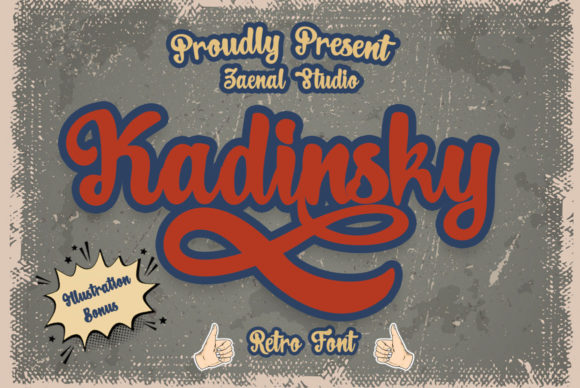
Unleash the Retro Charm in Your Designs with Kadinsky Font!
Kadinsky - a remarkable Retro script font that captivates the essence of nostalgia and playfulness. This unique font is the brainchild of Zaenal Studio, renowned for their mastery in crafting fonts that tell a story. Kadinsky is not just a font; it's a portal to a world of games, cartoons, and vintage logos.
With its quirky charm and elegant curves, Kadinsky adds a touch of whimsy to your designs. Its unique ligatures and glyphs allow for endless creative possibilities, ensuring your creations stand out from the crowd. Kadinsky's PUA encoding makes it a breeze to access these special characters, adding an extra layer of intrigue and personality to your projects.
Immerse yourself in the world of games with Kadinsky. Its playful nature perfectly captures the excitement and energy of interactive play. Create captivating logos, design engaging user interfaces, or craft eye-catching posters that transport players into a realm of fantasy and adventure. The possibilities are endless!
Beyond gaming, Kadinsky shines in the world of cartoons. Its quirky style breathes life into animated characters, adding depth and personality to their expressions. Create whimsical illustrations, design vibrant storybooks, or bring your own cartoon creations to life with Kadinsky's infectious energy.
For those seeking a touch of vintage charm, Kadinsky delivers effortlessly. Its retro aesthetic evokes a sense of nostalgia, reminiscent of simpler times. Craft elegant logos inspired by the golden age of design, create captivating branding materials that exude timeless appeal, or add a touch of history to your personal projects.
Kadinsky's versatility extends beyond the digital realm. Its printable format allows you to bring its charm to the physical world. Design stunning posters, greeting cards, invitations, and other printed materials that are sure to leave a lasting impression. Unleash your creativity and let Kadinsky guide you to new heights of design excellence!